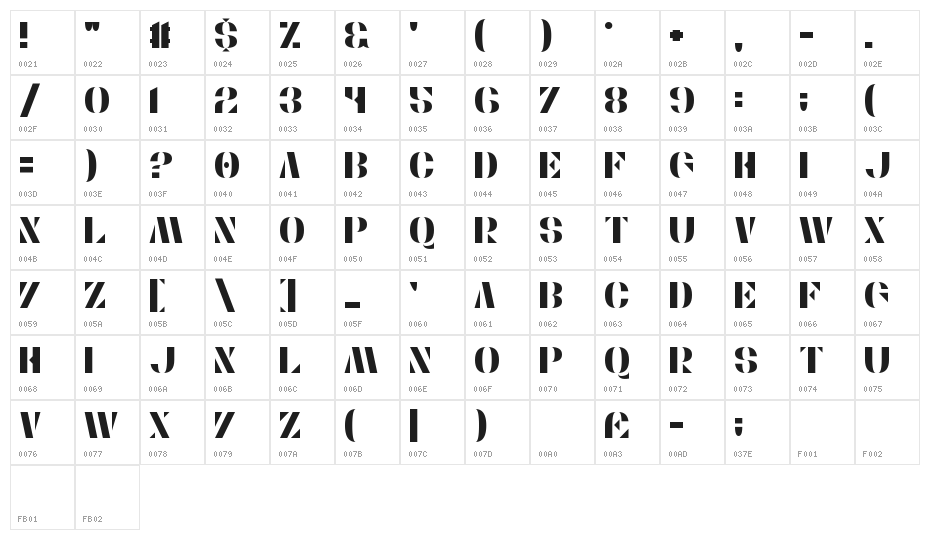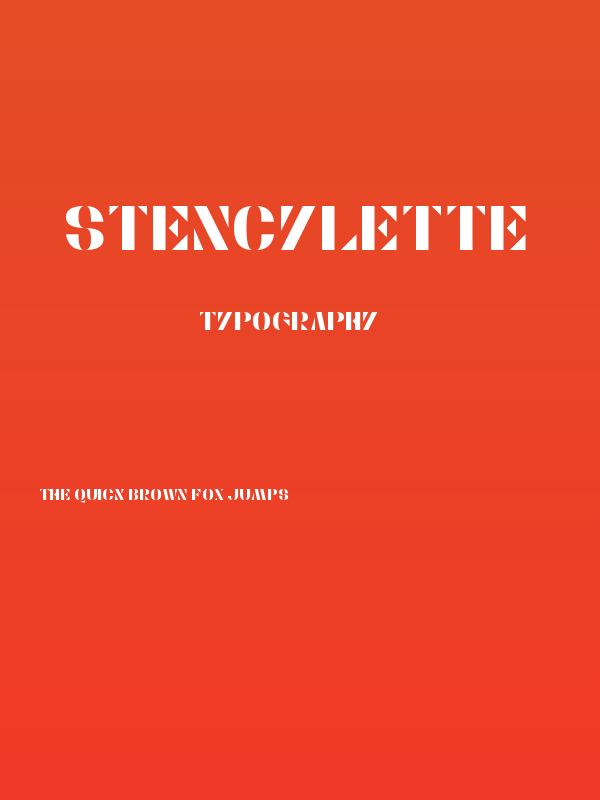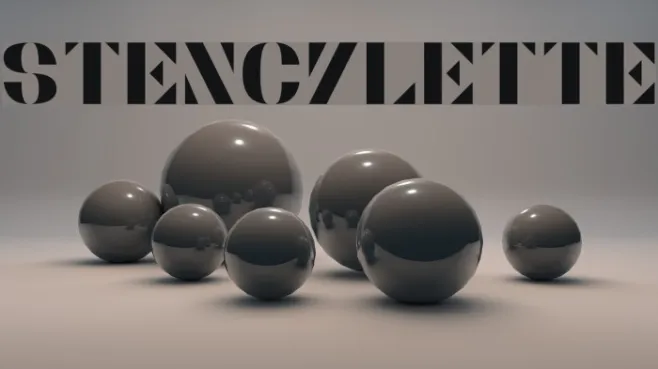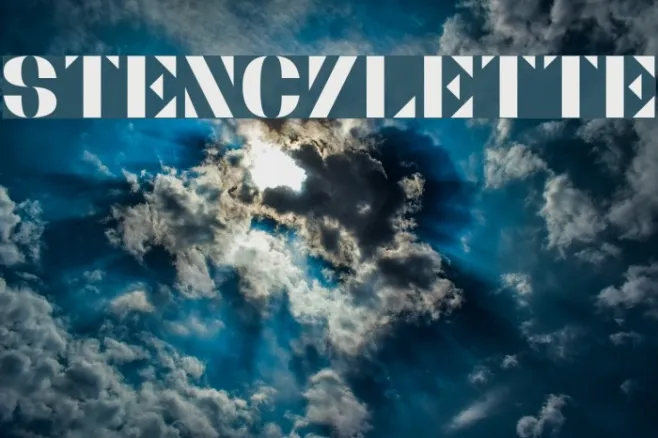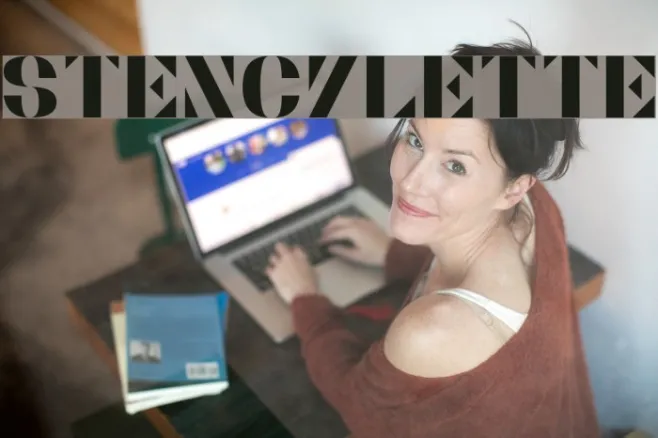
Stencylette Font
Stencylette Description
This font features a bold, stencil-like design with strong geometric shapes and high contrast between thick and thin strokes. The characters are distinct and easily recognizable, with a modern and industrial feel. The uppercase and lowercase letters maintain a consistent style, with sharp angles and clean lines. The numbers and special characters follow the same aesthetic, making the font versatile for various design needs. The cut-out sections in each character add a unique touch, enhancing its visual appeal.